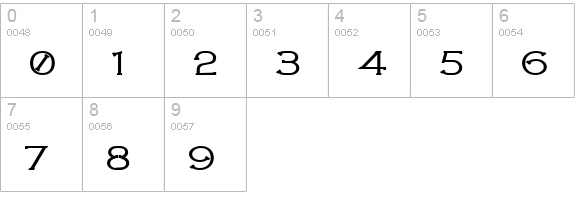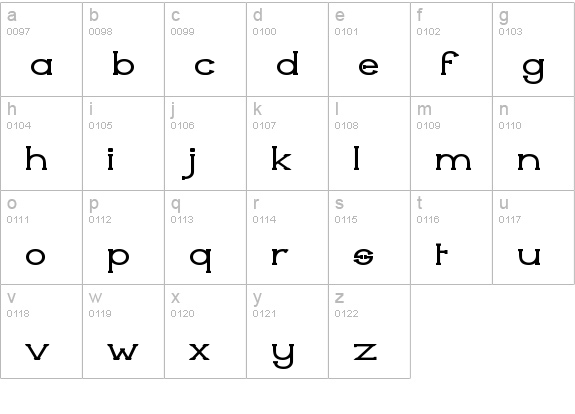
Technically Insane Widesemibold font is a bold and eccentric display typeface that exudes a sense of controlled chaos. Its unique design combines sharp edges with playful curves, creating a visually striking and attention-grabbing effect. This font is perfect for those who dare to be different and are not afraid to push the boundaries of traditional typography. With its wider and bolder strokes, Technically Insane Widesemibold demands attention and adds a touch of madness to any design project. Whether you are creating eye-catching headlines, poster designs, or branding materials, this font will make your text stand out from the crowd. Its bold presence and unconventional style make it an excellent choice for projects that require a touch of edginess and originality. The best part is that Technically Insane Widesemibold font is freely available to download at FontsMarket.com. You can easily access this font and add it to your collection without any cost. Embrace the madness, unleash your creativity, and make a statement with Technically Insane Widesemibold font.